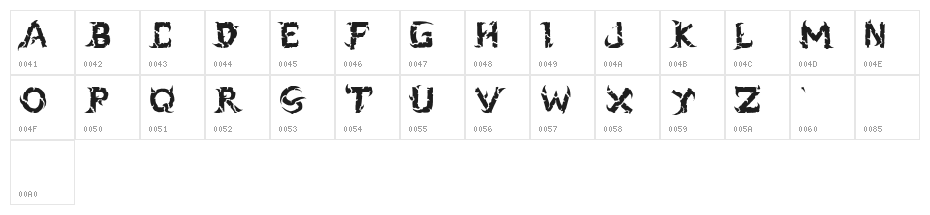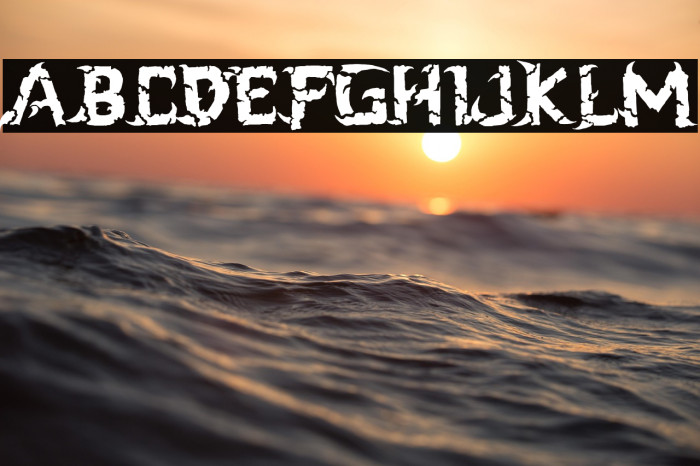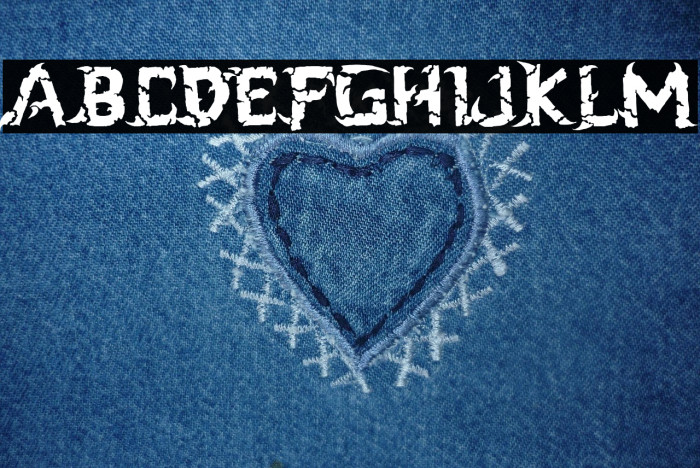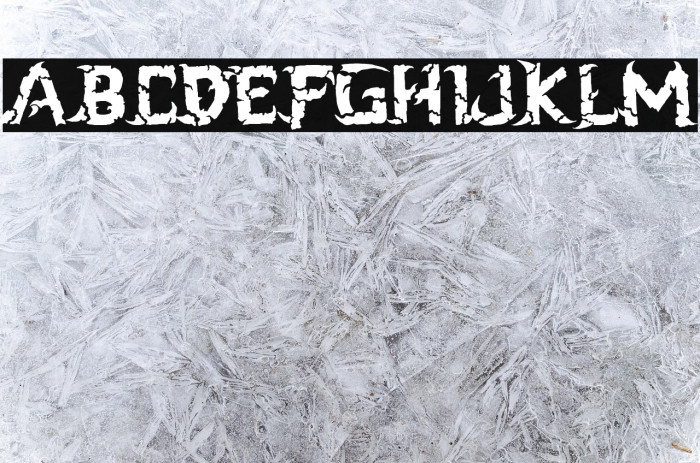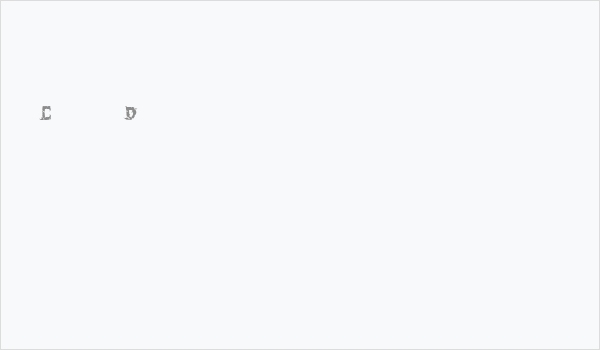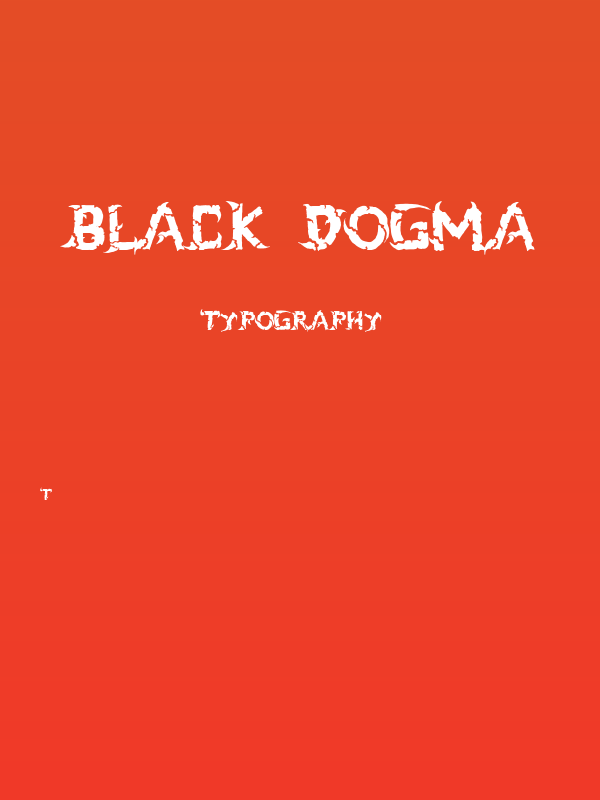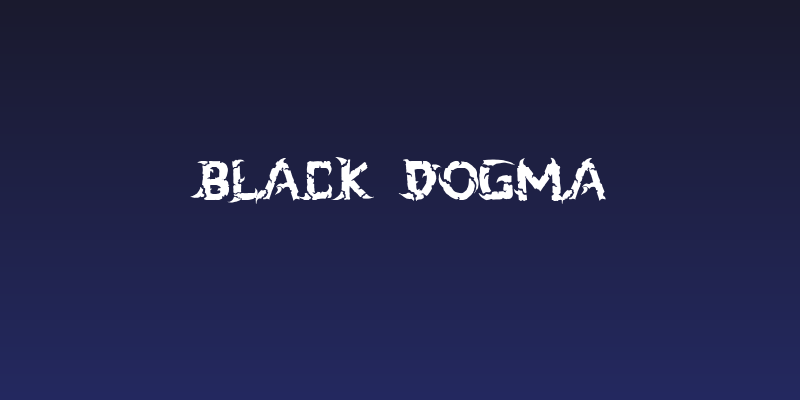
black dogma Font
black dogma Description
This font features a rugged, distressed appearance, with each character appearing as if it has been weathered or eroded. The edges are irregular and jagged, giving it a raw and edgy feel. The uppercase letters are bold and commanding, while the lowercase letters maintain the same distressed style, ensuring consistency across the typeface. The numbers and special characters follow suit, providing a cohesive look. This font is designed to capture attention and convey a sense of grittiness and rebellion.
Overall StyleEdgy, Rugged, Distressed
Use CaseLogos, Posters, Album Covers
Proposed ProjectsIdeal for projects that require a bold, edgy look, such as music album covers, posters for rock concerts, or branding for extreme sports.